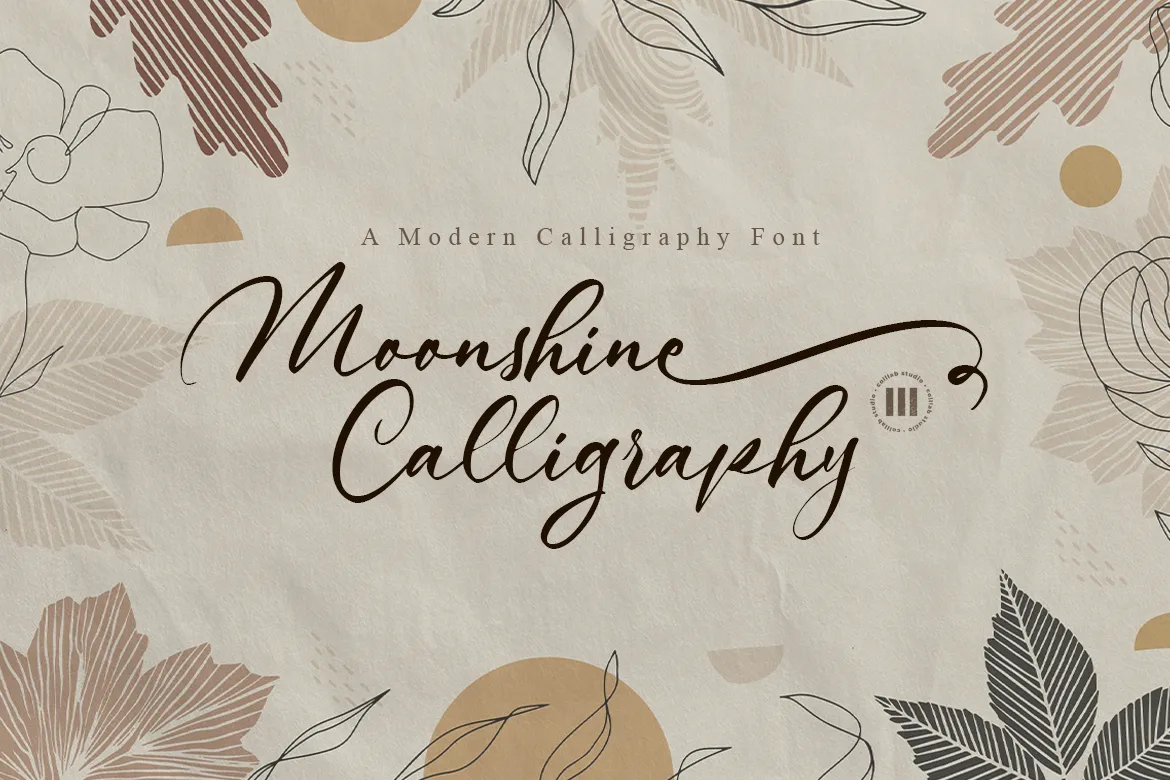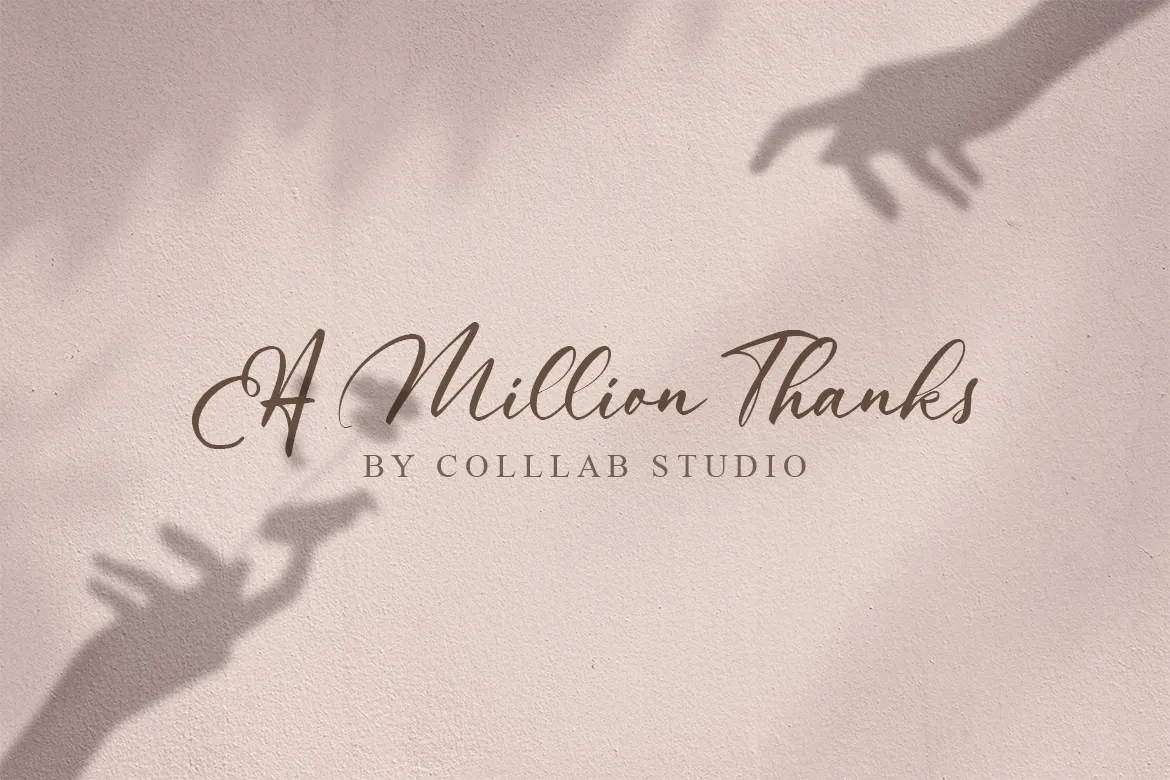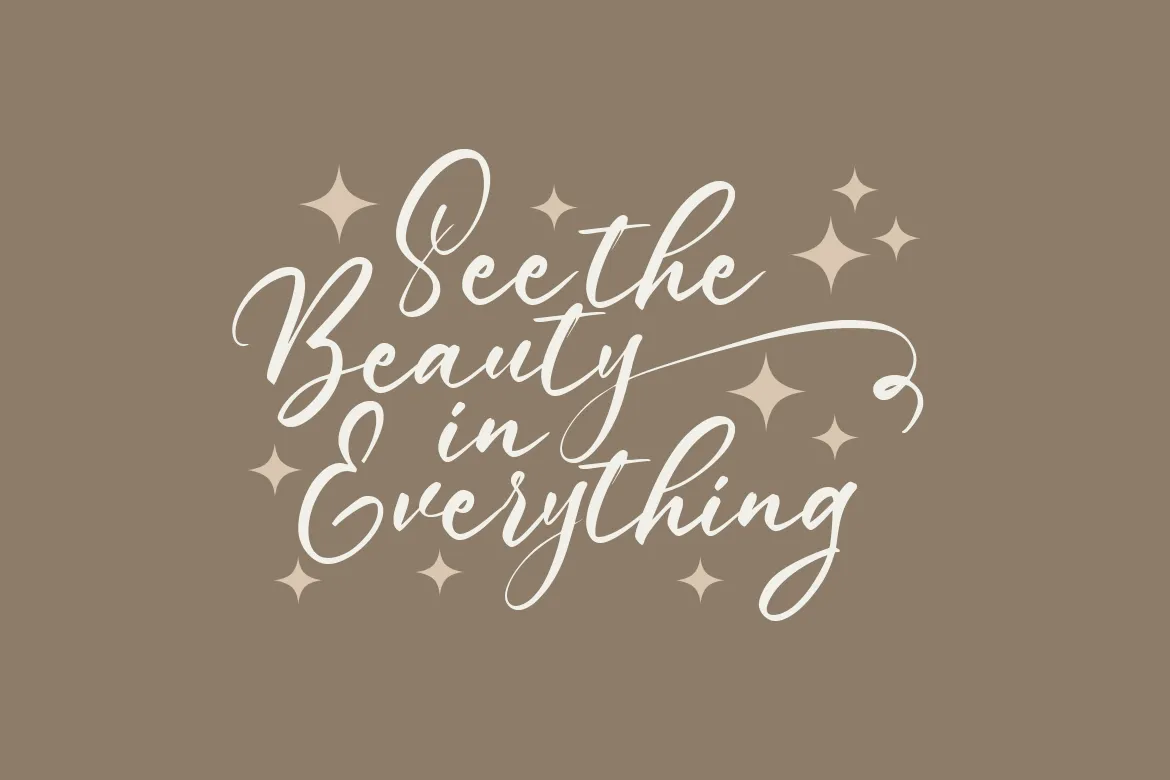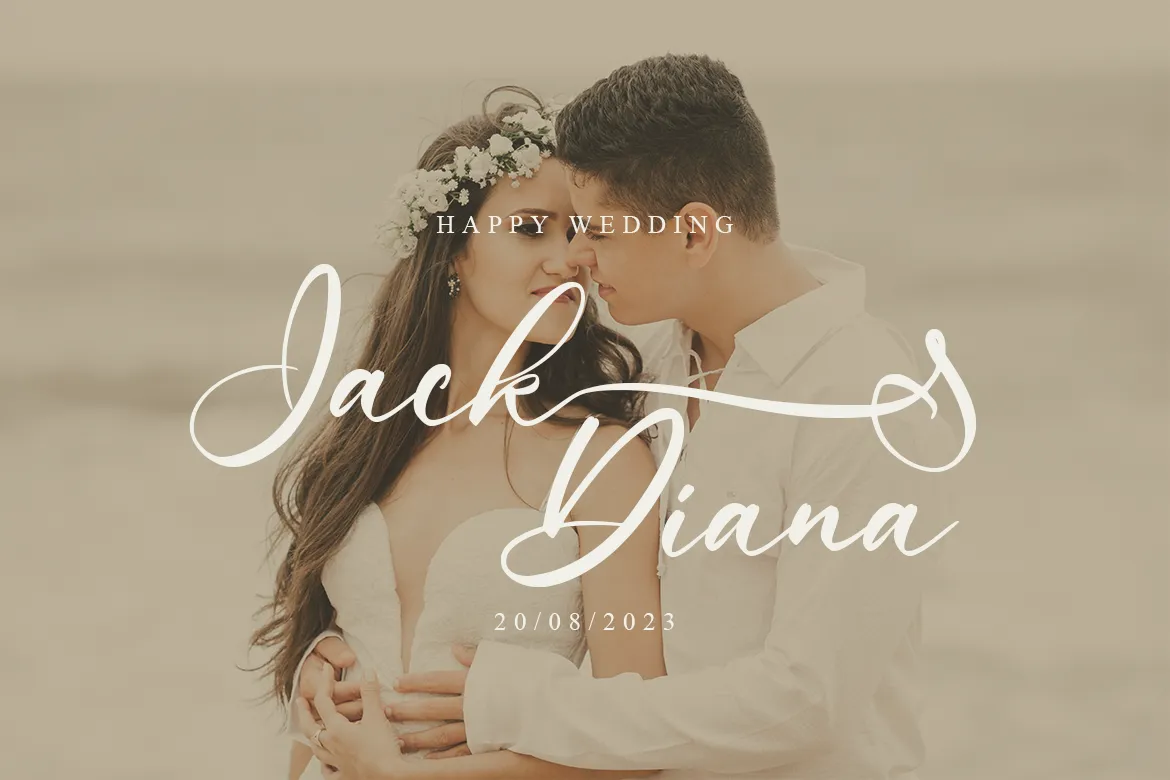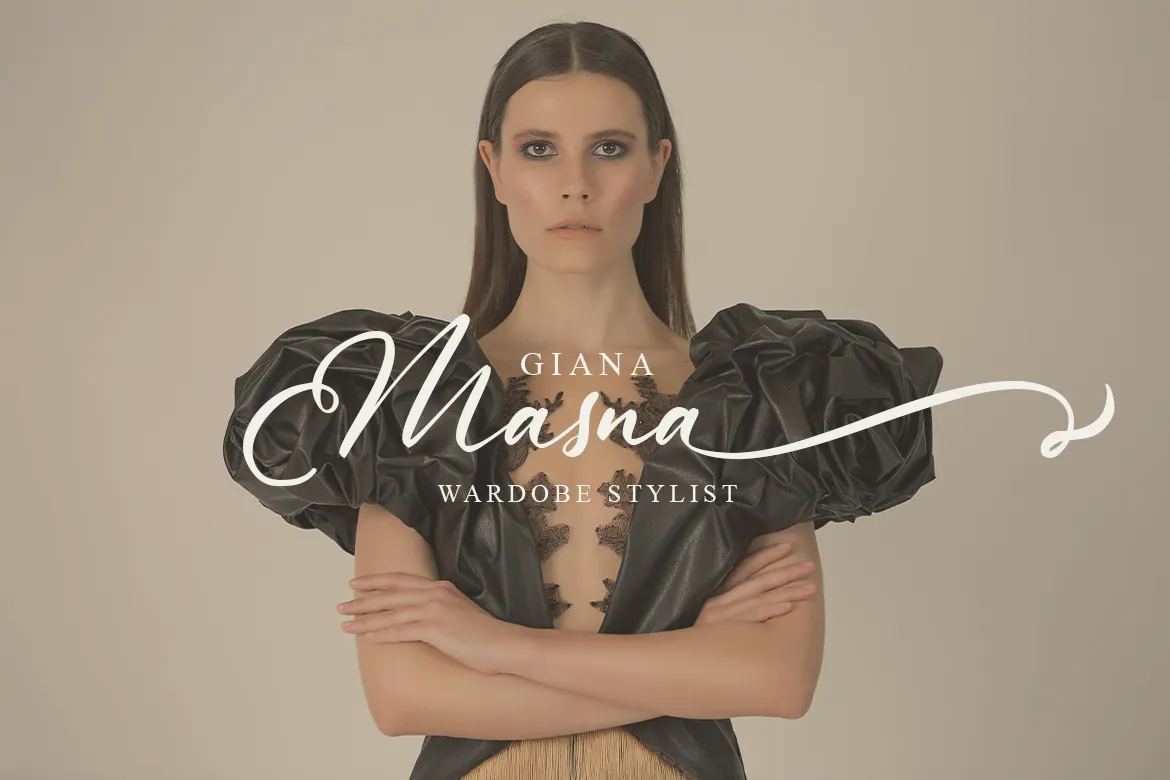
Moonshine Calligraphy
When designing a project, the first thing you probably think about is the content of your design. What will it say? How will it look?
But do you ever stop to think about what kind of font you’d like to use?
If you’re anything like us, you probably haven’t. We never thought much about fonts until we were faced with a design that had been typed up in same style and boring look font, and we thought we could do better. That’s why we created Moonshine Calligraphy, a gorgeous font with clean, rounded strokes and perfectly placed script that help it stand out from the crowd.
Wanna know about a secret? Moonshine Calligraphy is crafted with more than 400 characters, and the most interesting thing is Moonshine Calligraphy comes with 7 stylistic alternates (include beginning and ending swashes) that will make your design looks elegant.
Now, with Moonshine Calligraphy, you can create logos and branding, wedding designs, social media posts, advertisements and product designs. Choose between different variations to make this font your own!
• 445 Glyphs
• 7 Sets Stylistic Alternates
• Sets of Ligatures & Swashes
Moonshine Calligraphy, a gorgeous font with clean, rounded strokes and perfectly placed script that help it stand out from the crowd.